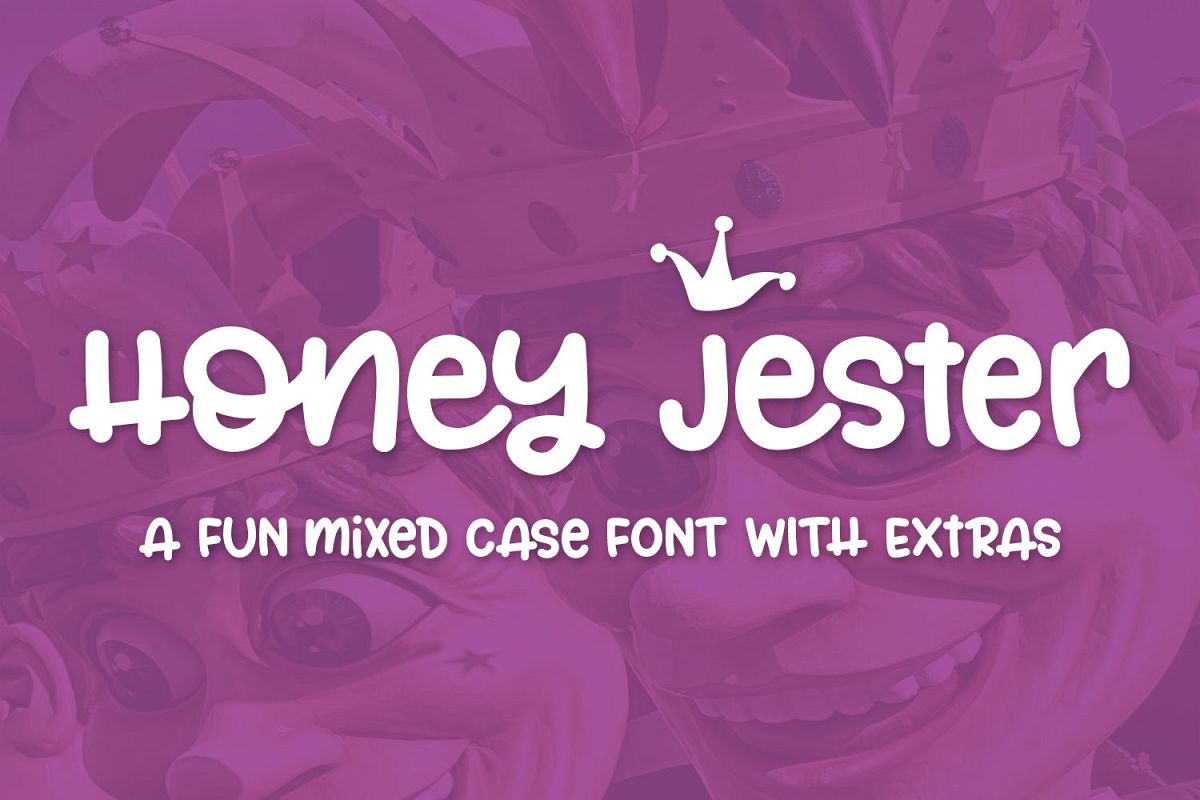
Introducing Honey Jester, a fun mixed case font with extras!
A multilingual font with stylistic alternates, discretionary ligatures, and a bonus ornaments file.